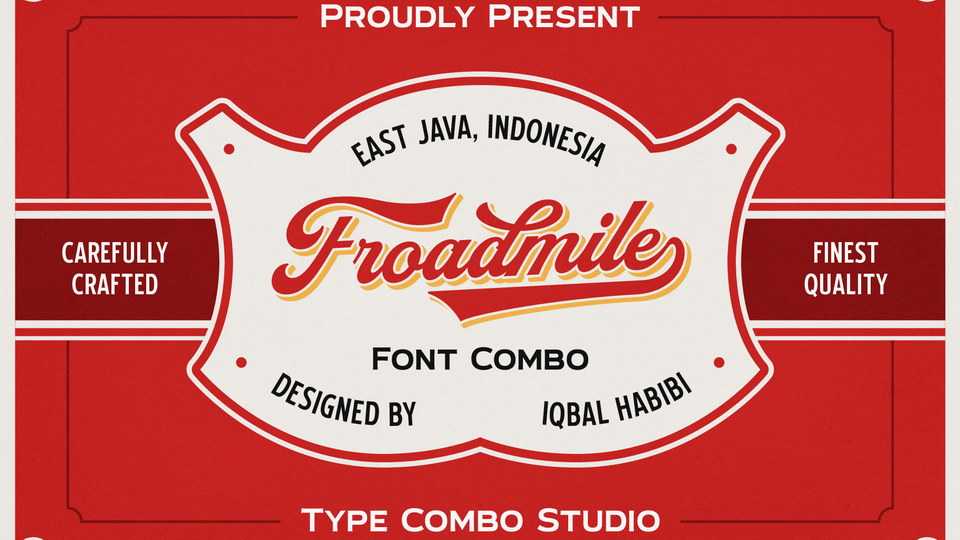
Download Froadmile font, a bold script typeface inspired by a vintage lettering. Froadmile is well suited for logos, lettering artwork, t-shirt designs, editorial illustrations and more.